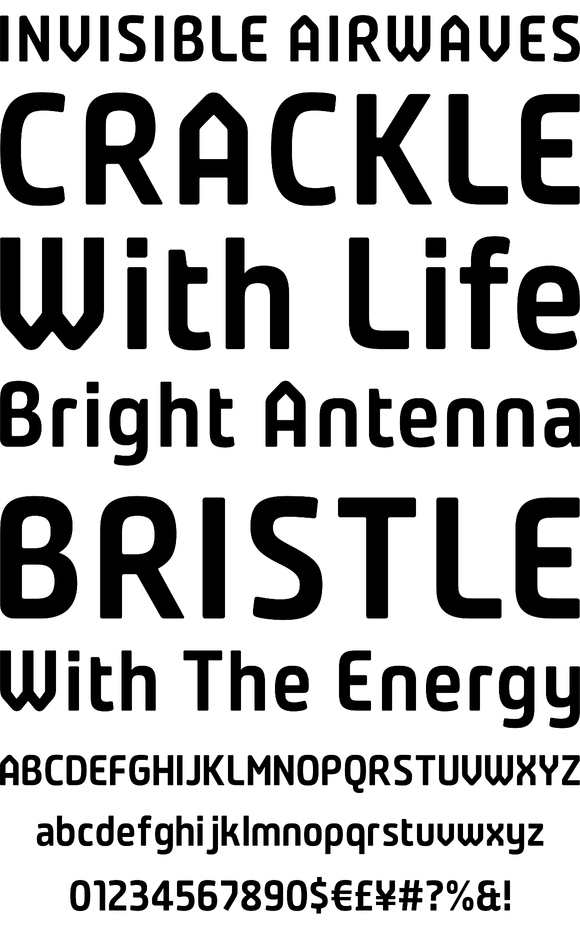
Foundry: Plau
Futurist typeface from the programming era, Plau is a 6 weight sans-serif with rounded corner personality and interestingly deliberate lettershapes. Comfortable in headlines, reads surprisingly well in longer passages of text. Its usage ranges from branding and print to web in less than 5 milliseconds. Plau includes OpenType features such as OT All Small Caps, Fraction, Proportional/Tabular Oldstyle and lining figures, subscript and superscript numbers.